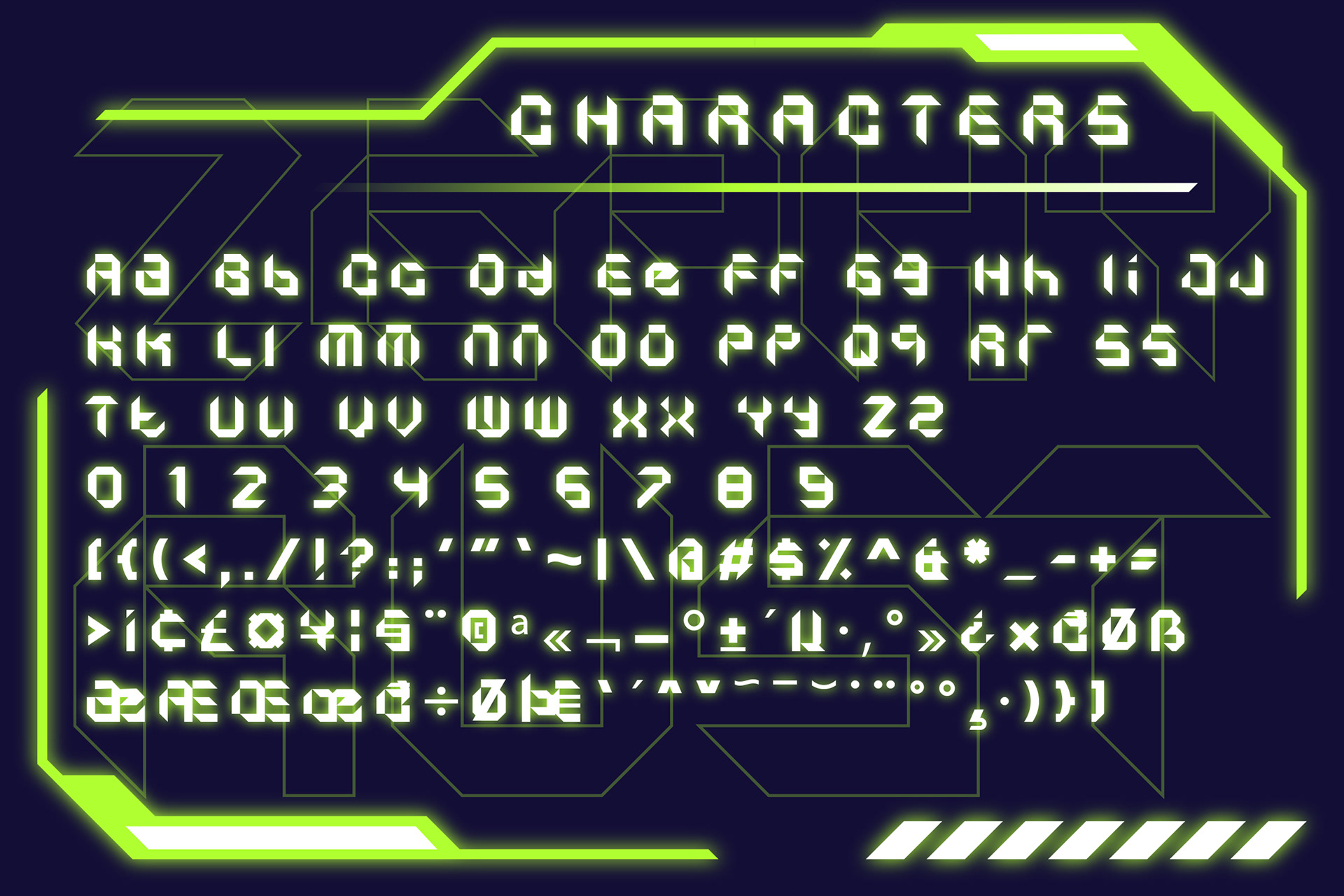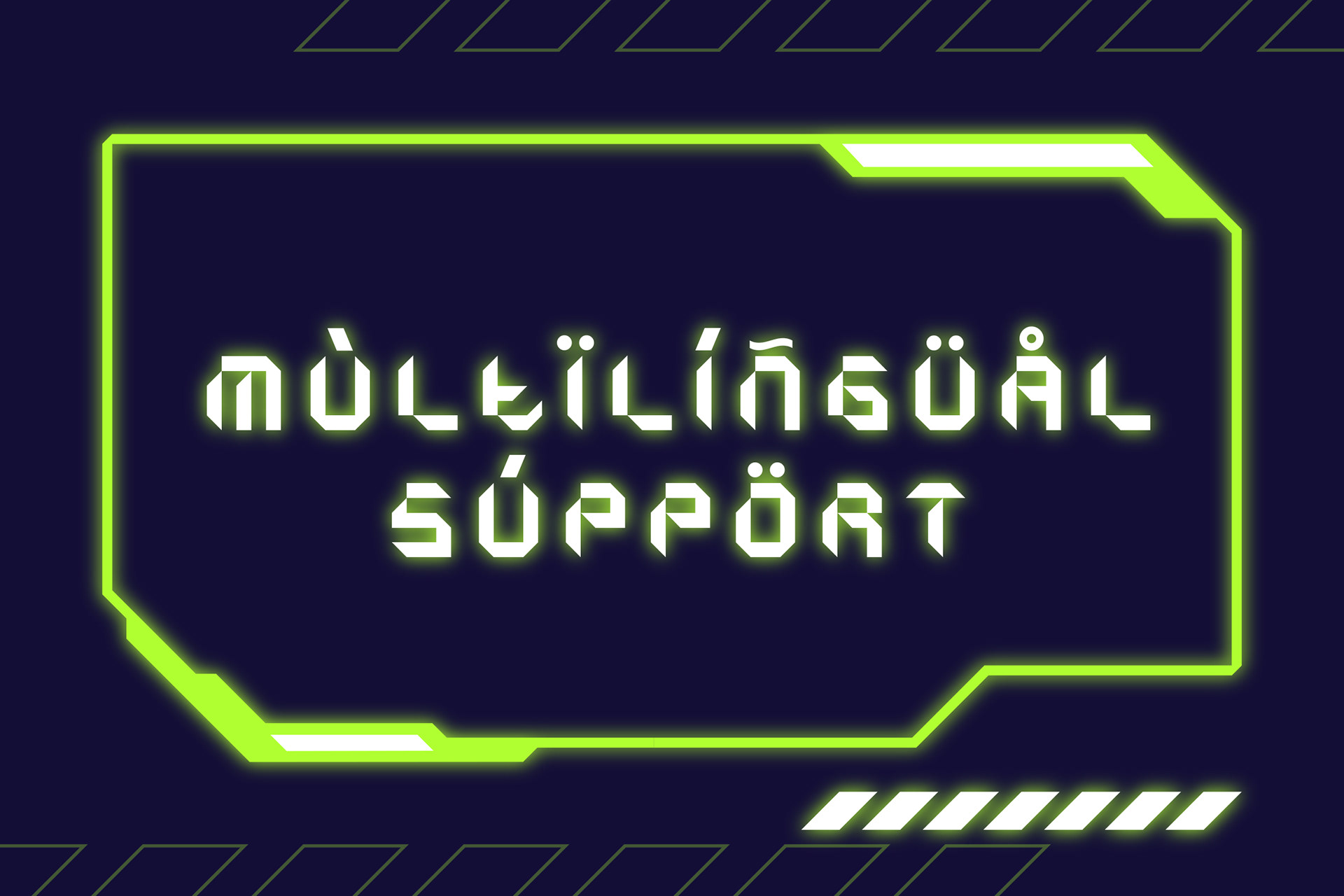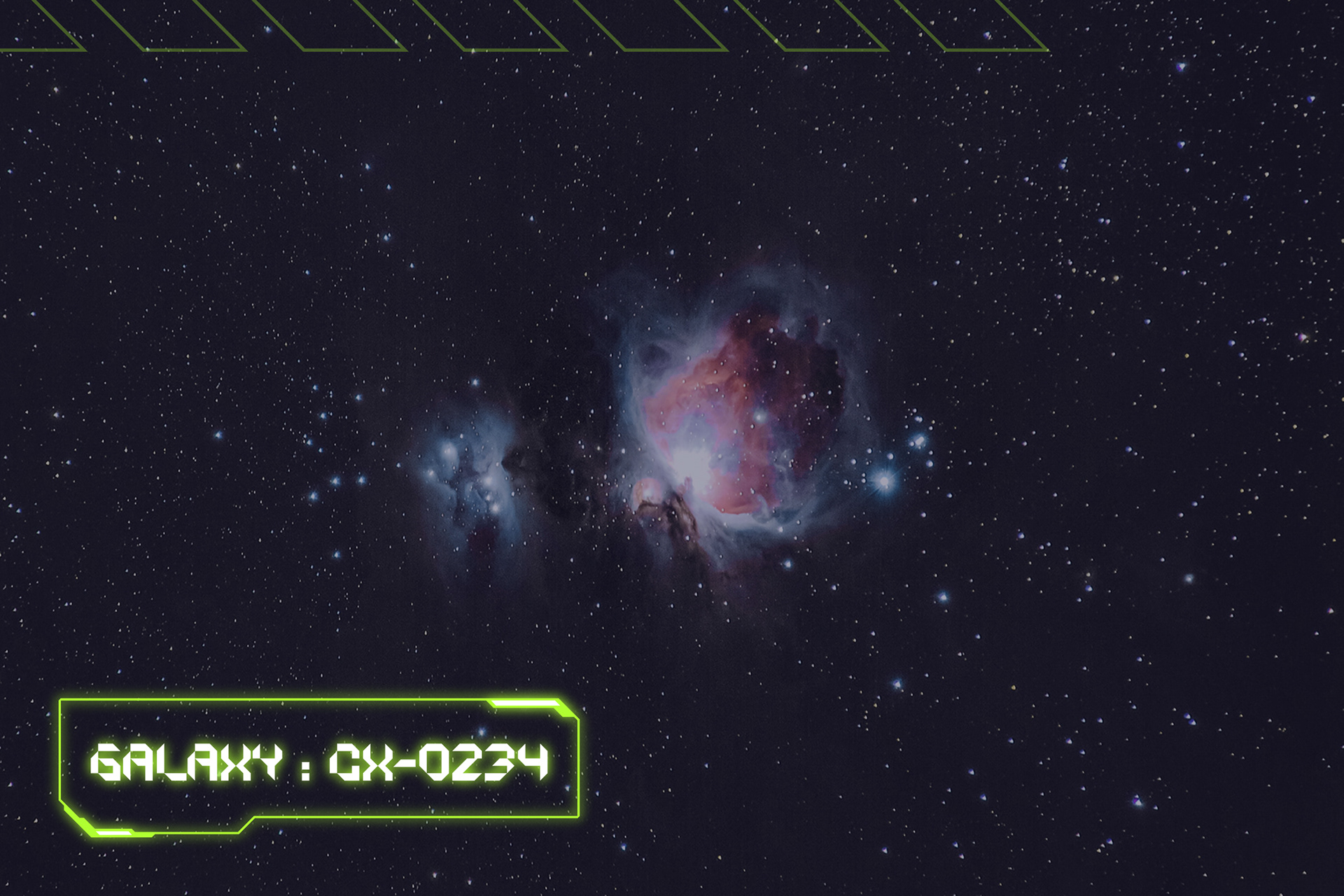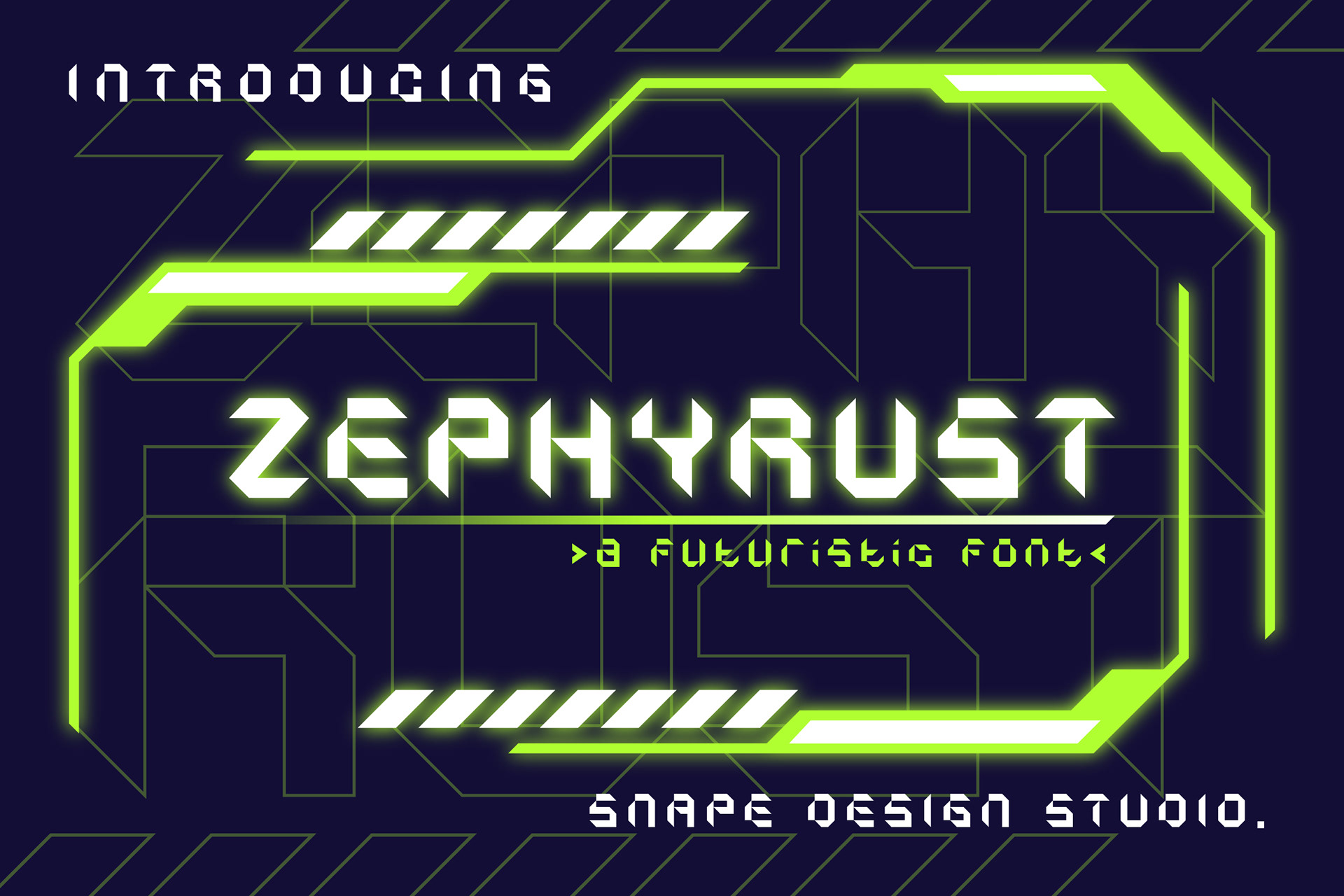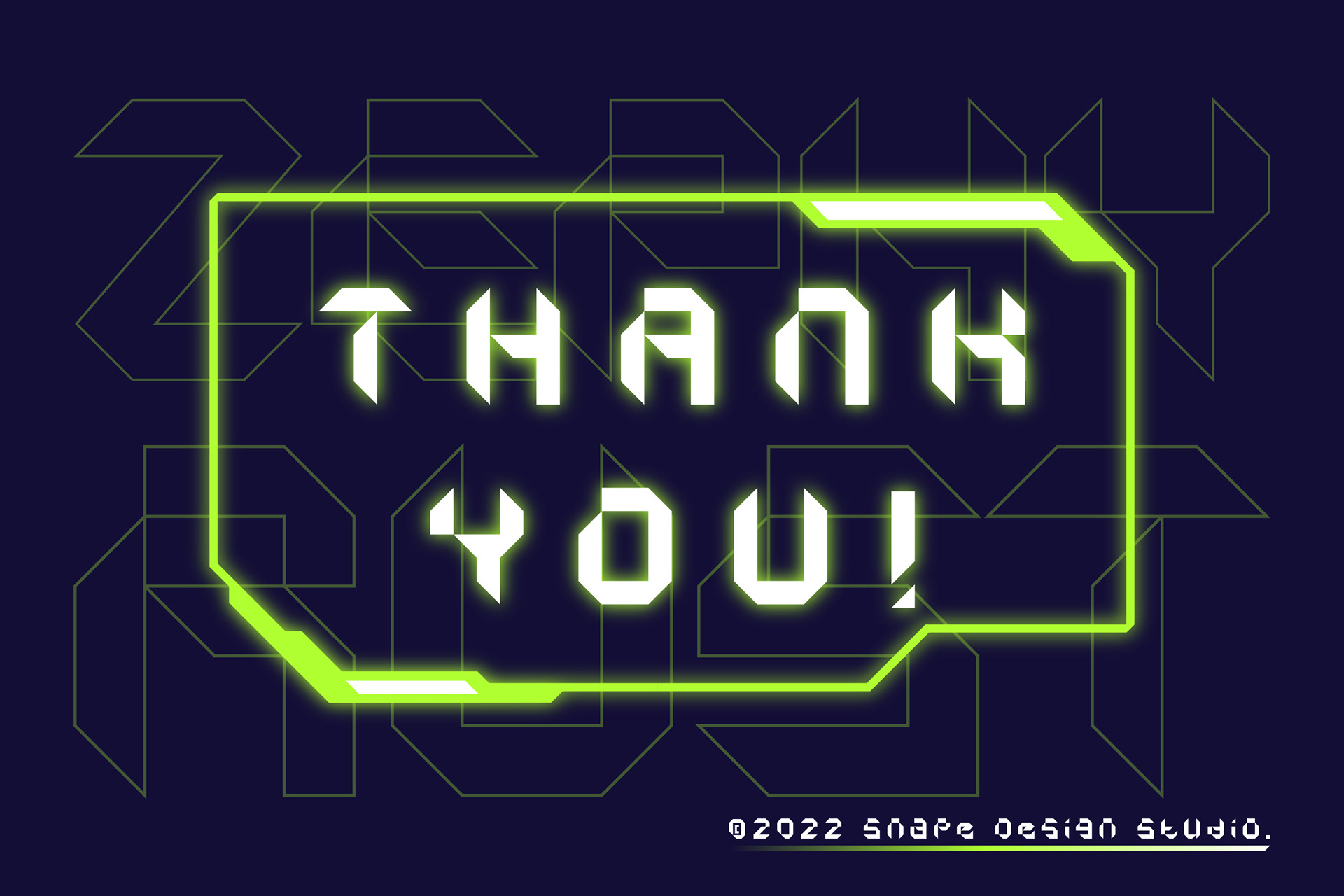
Zephyrust is a modern futuristic font. Zephyrust perfect for technology, digital, space galaxy theme. Also suitable for movie, documenter, film, logo, poster, game, book cover, headlines, title and many more projects. Add this font to your creative ideas and notice how it will make them stand out!